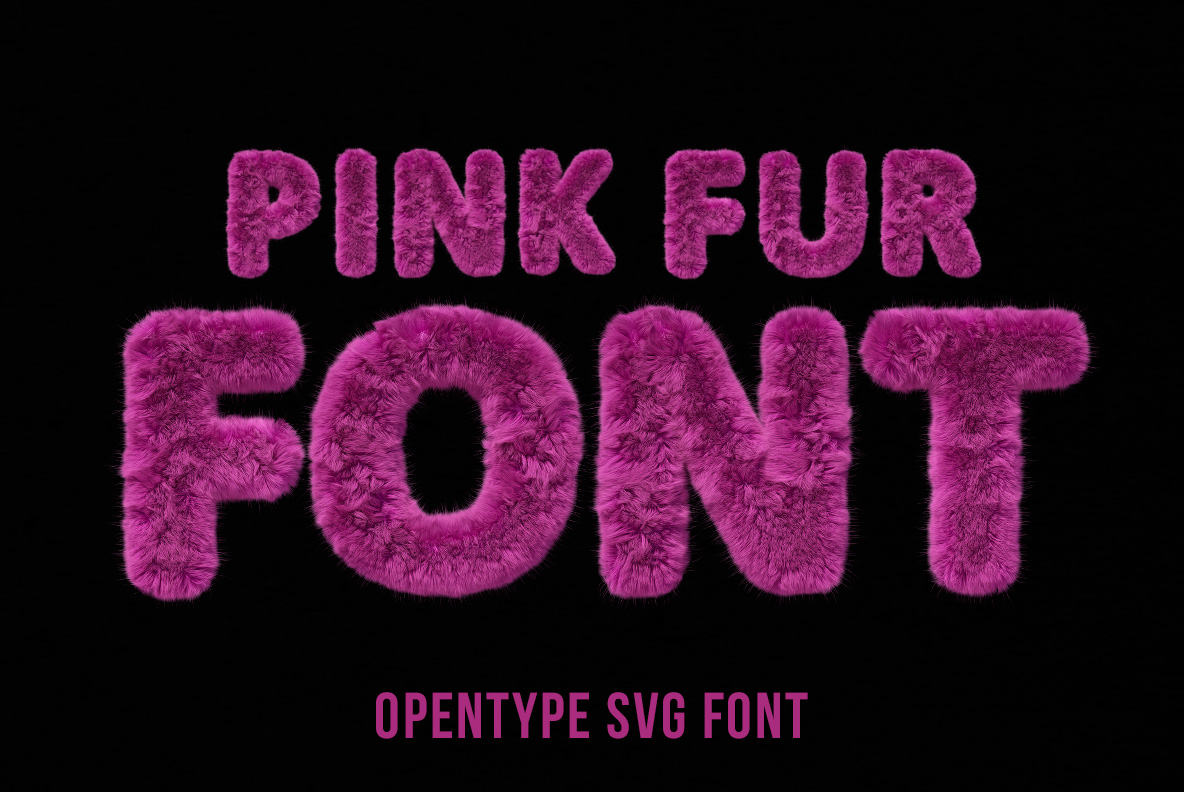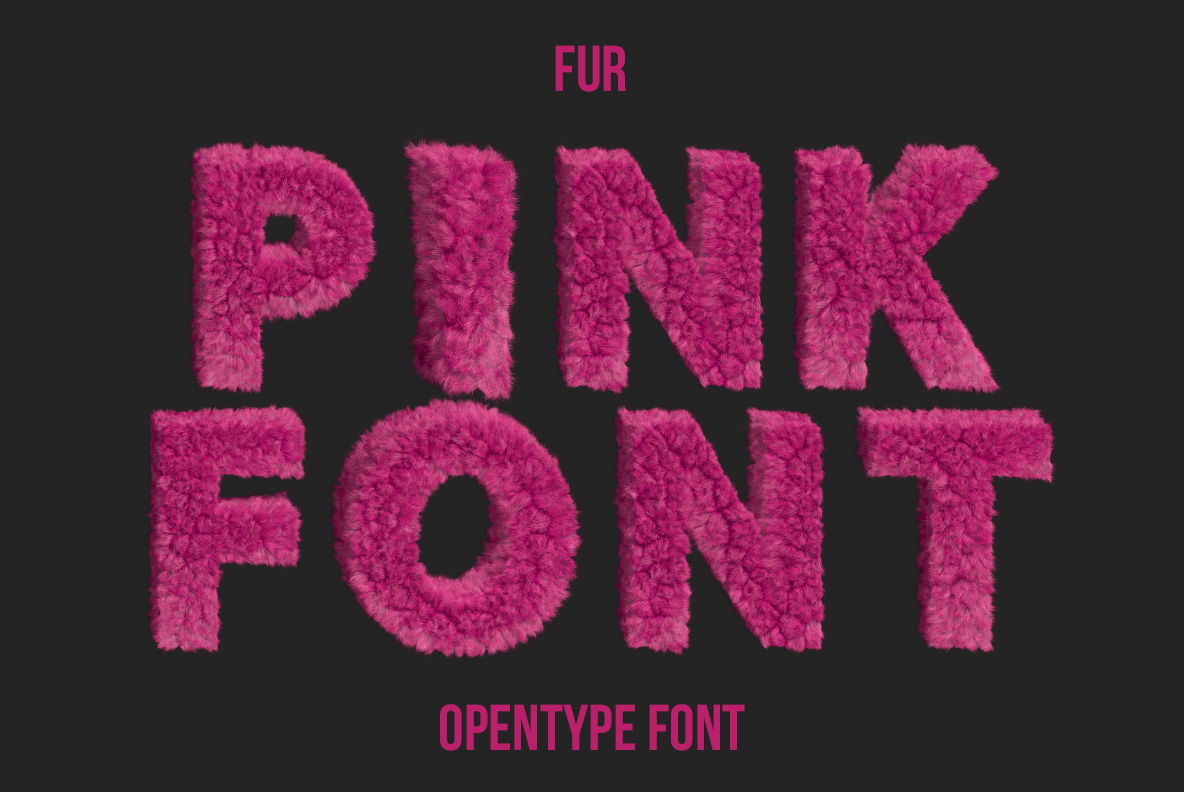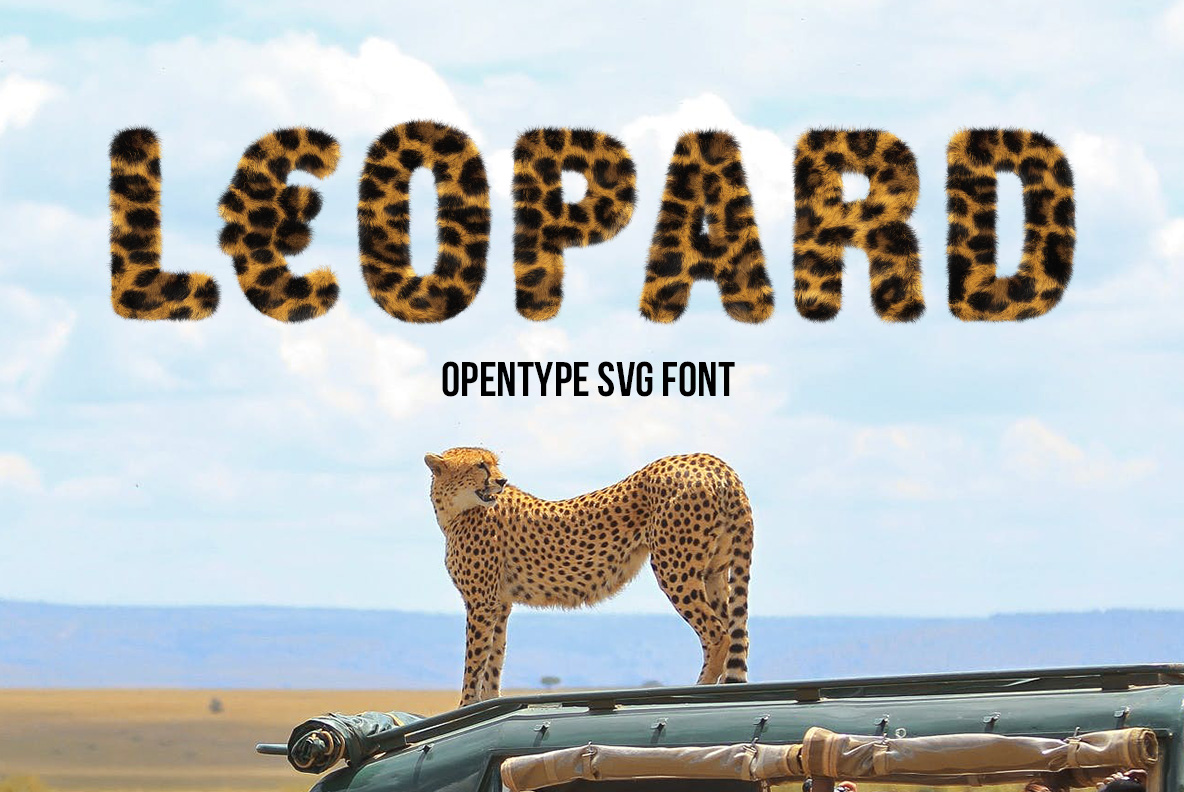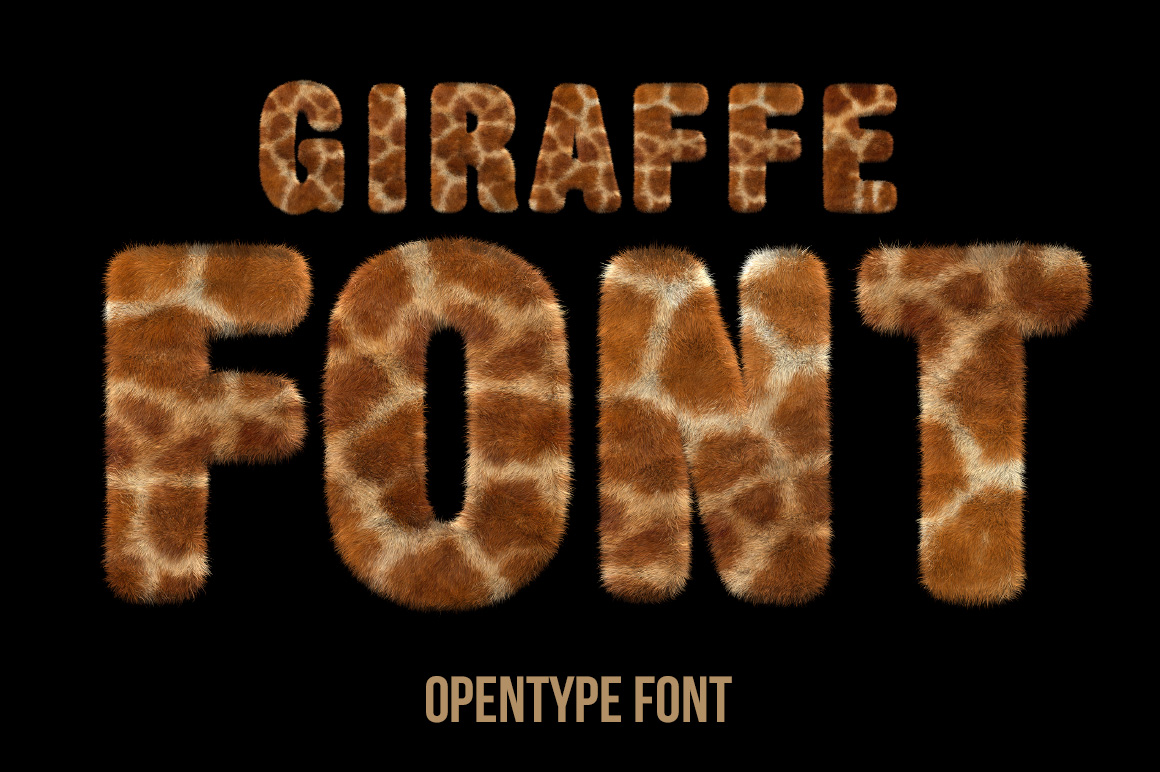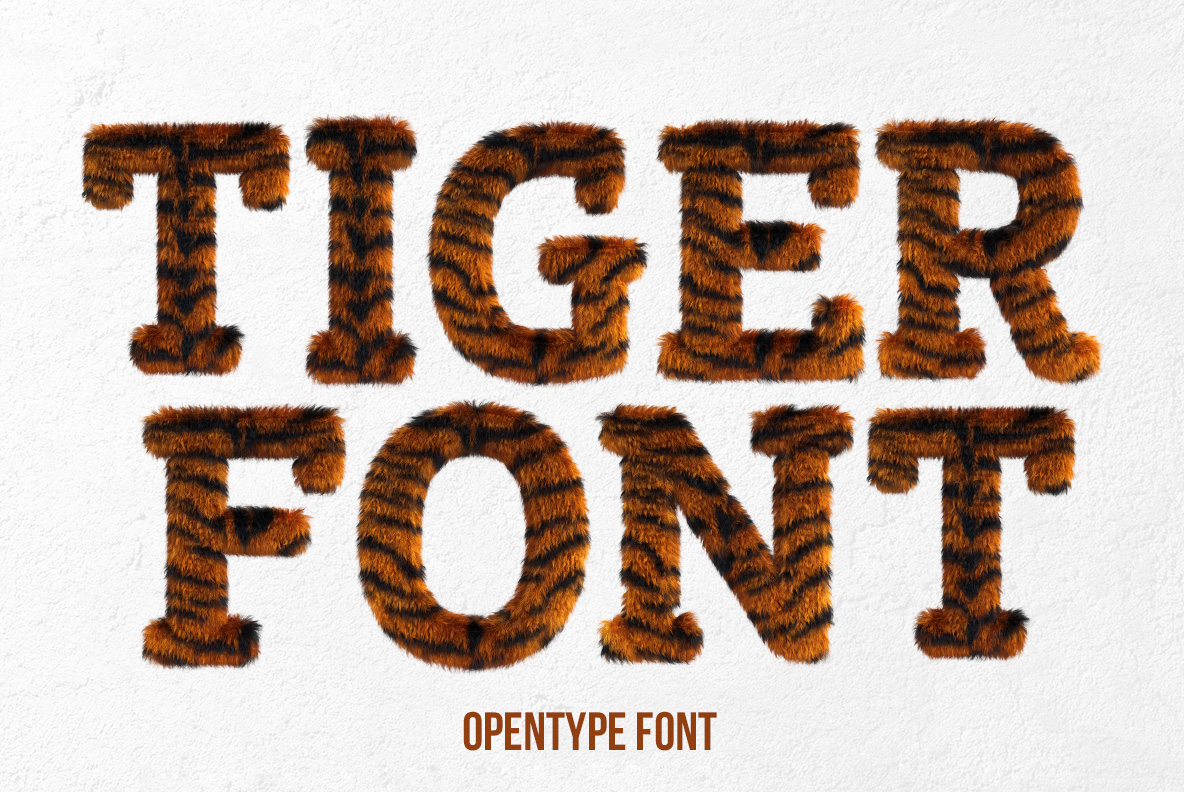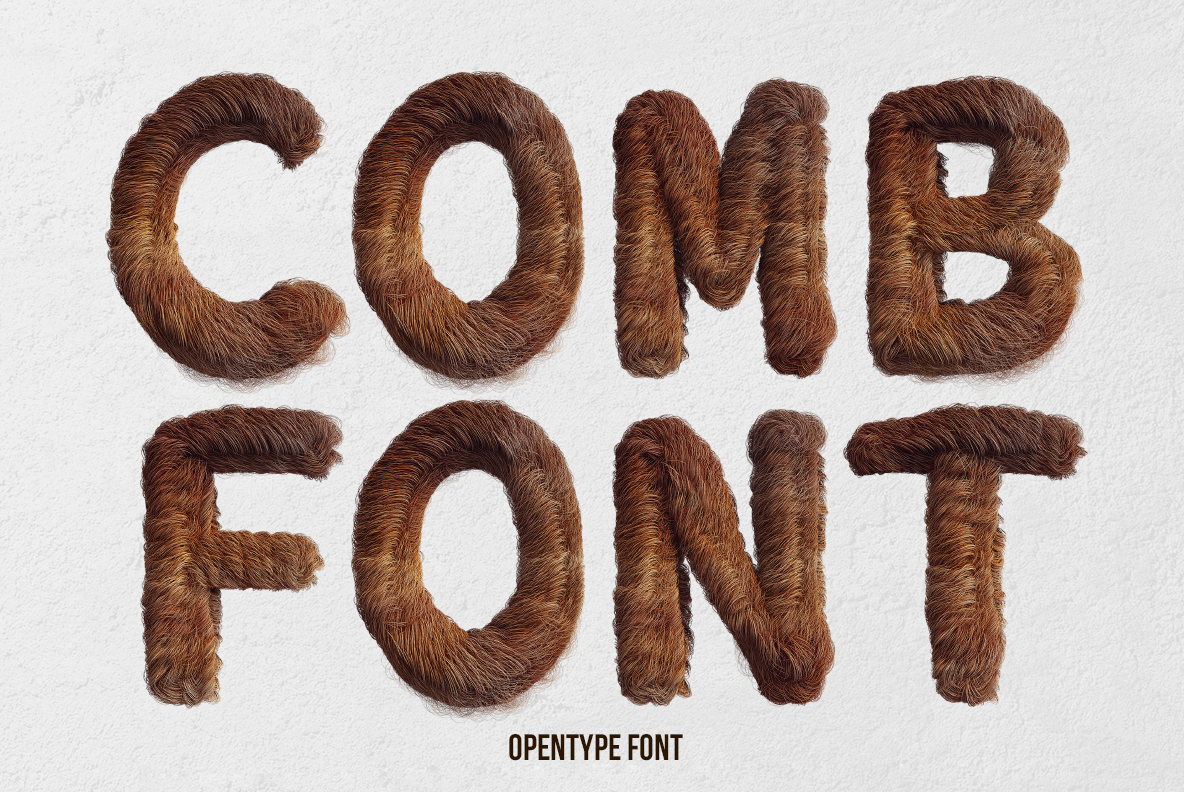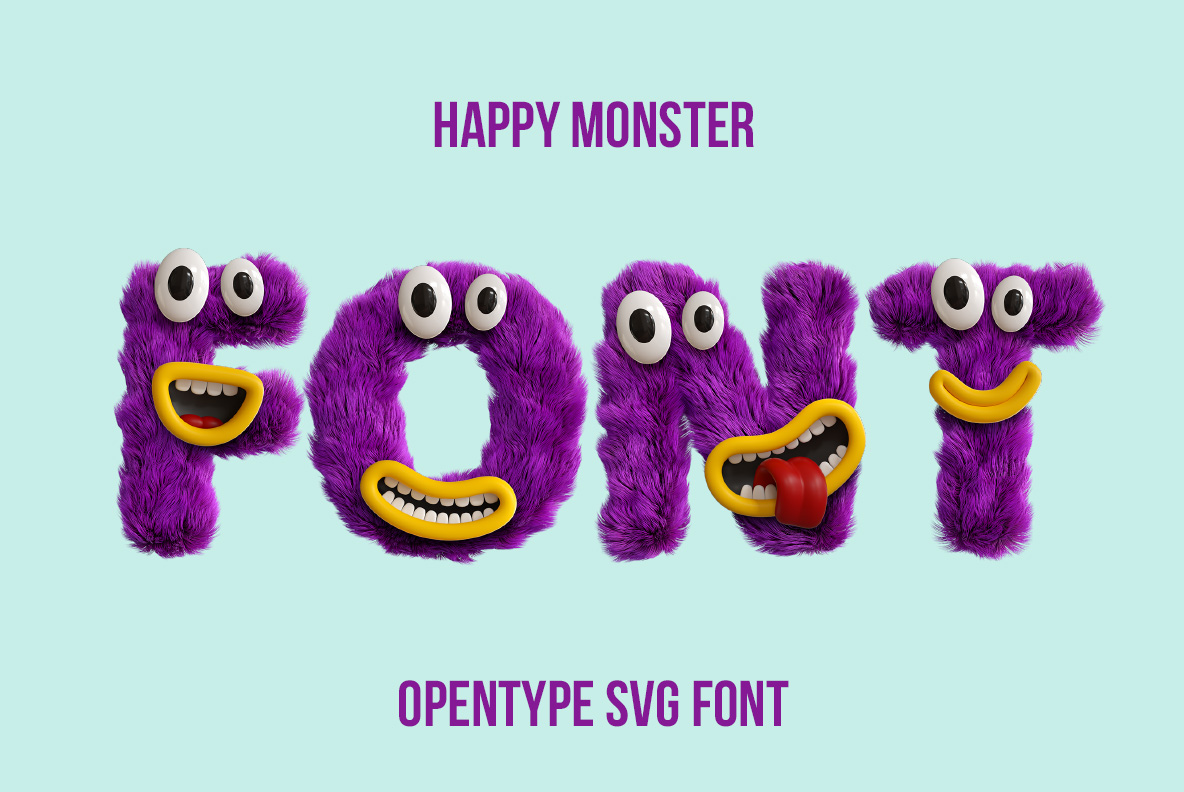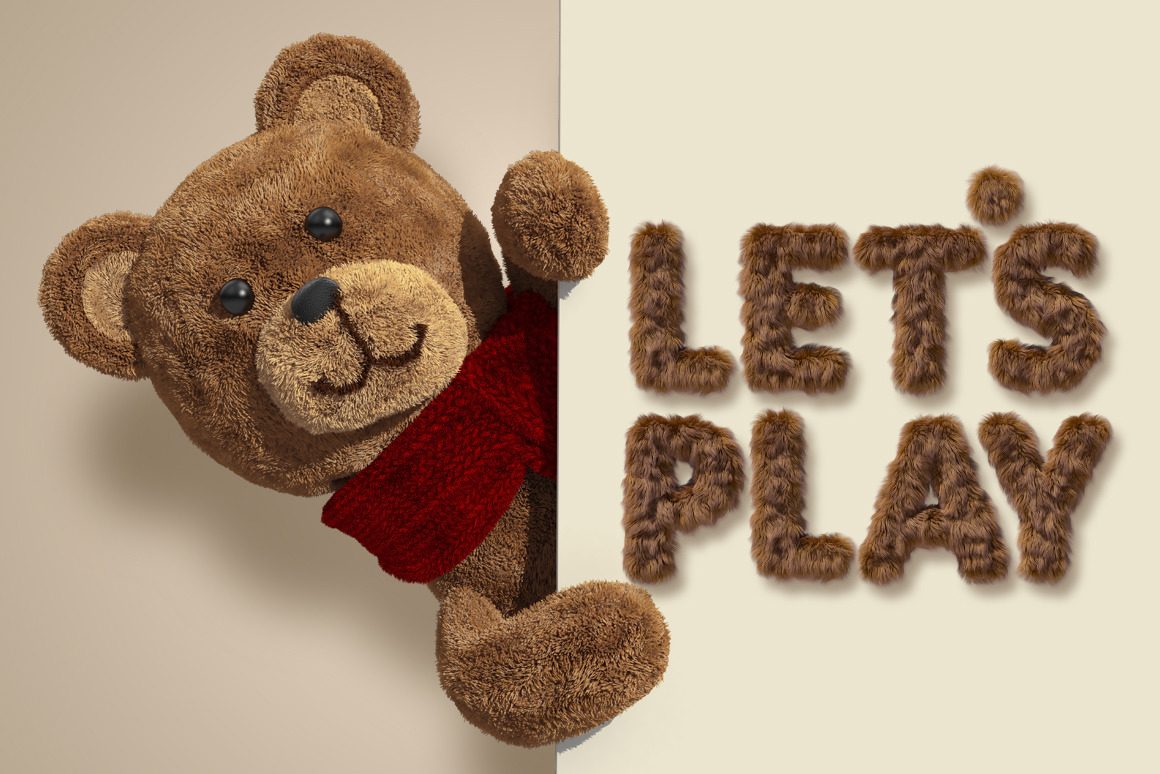
Fur Fonts – Furry, Fluffy & Animal-Inspired Typography
Discover Fur Fonts that turn letters into soft, fluffy and wildly textured objects. This collection brings together colorful fur, animal patterns, shaggy hair and playful plush typography. From tiger and leopard lettering to pink fuzz and teddy bear textures, these unusual display fonts add a tactile personality to posters, packaging, branding, editorial graphics and experimental design.
Fur Fonts is the collection you want to touch. Every letter has a pile with a direction to it — combed flat, falling under its own weight, or clipped short so the letterform stays readable underneath. Animal markings follow that direction rather than sitting on top of it, which is the detail that separates real fur from a pattern laid over a shape.
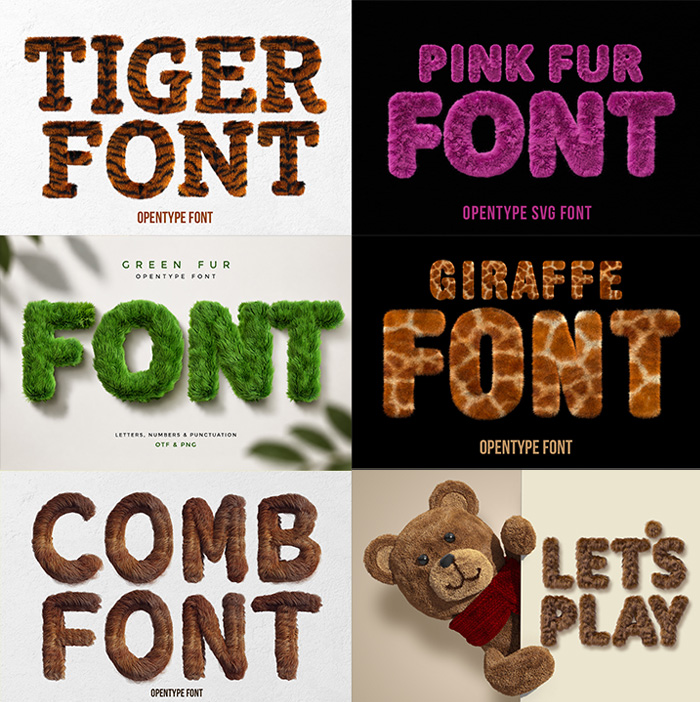
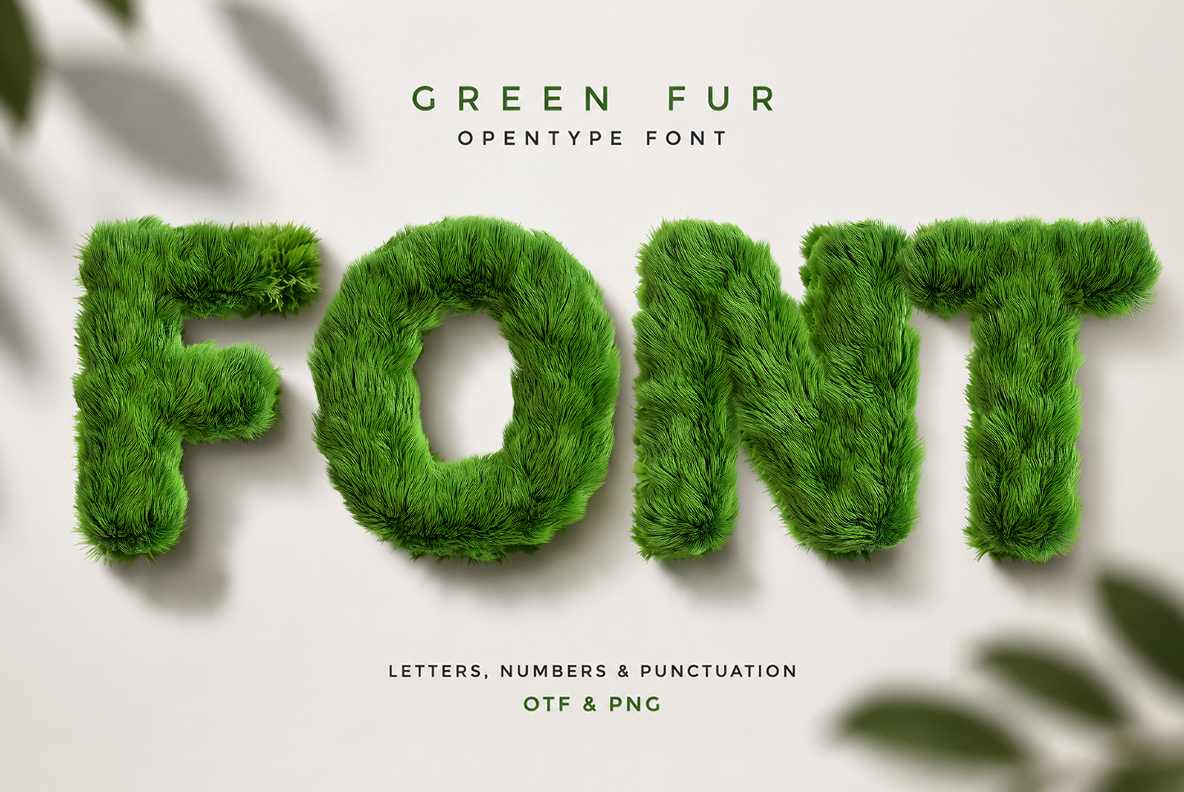Everything Here Has a Nap to It
Green Fur Font with realistic fluffy green letters
Green Fur Font
Bright green pile, combed flat, somewhere between grass and carpet.
Pink Fur Passion Font with bright pink fluffy letters
Pink Fur Passion Font
Long magenta silk on black, the pile falling where gravity puts it.
Pink Fur Font featuring soft pink furry lettering
Pink Fur Font
Shorter pink fur clipped close, so the letterform stays sharp under it.
Leopard Font with spotted animal fur lettering
Leopard Font
Leopard rosettes printed across the pile and following its direction.
Giraffe Font with realistic giraffe fur texture
Giraffe Font
Giraffe patches in ginger and cream, each letter a different piece of hide.
Tiger Font with orange and black striped furry letters
Tiger Font
Tiger stripes running round the strokes rather than across them.
Comb Font featuring letters made from realistic brown hair
Comb Font
Brushed auburn hair, parted and combed into letters on pale paper.
Happy Monster Font with purple furry letters and funny faces
Happy Monster Font
Purple shag with googly eyes and a lolling tongue. Made for children.
Brown Teddy Bear Font with soft teddy bear fur letters
Brown Teddy Bear Font
Teddy plush, worn slightly flat at the corners, with the bear beside it.
Fur Fonts Are for Warmth, Children and Luxury
Toy brands, children’s publishing and nursery products take the soft ones; pet shops, vets and animal charities take the animal ones. Fashion uses fur lettering constantly on winter campaigns and knitwear packaging. Salons and haircare take the hair ones for obvious reasons. One warning: pile eats fine detail, so avoid thin weights and set these large enough that the strands are actually visible.